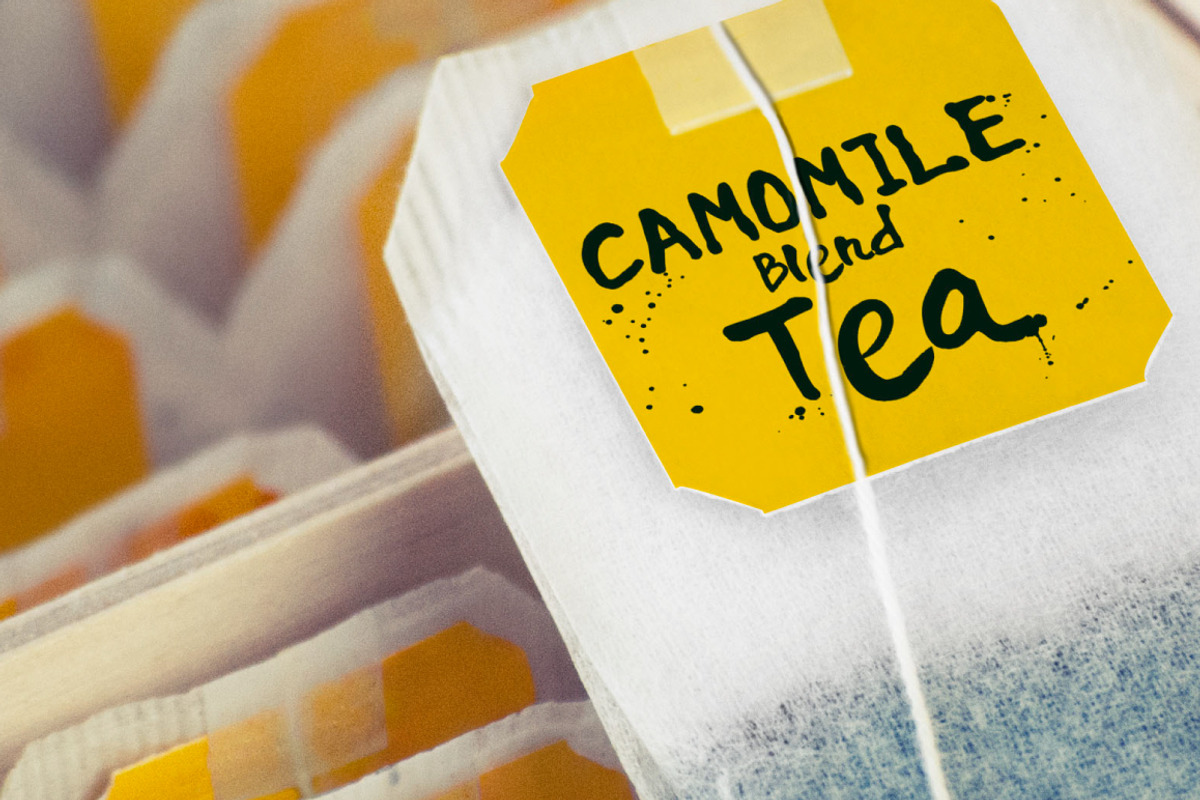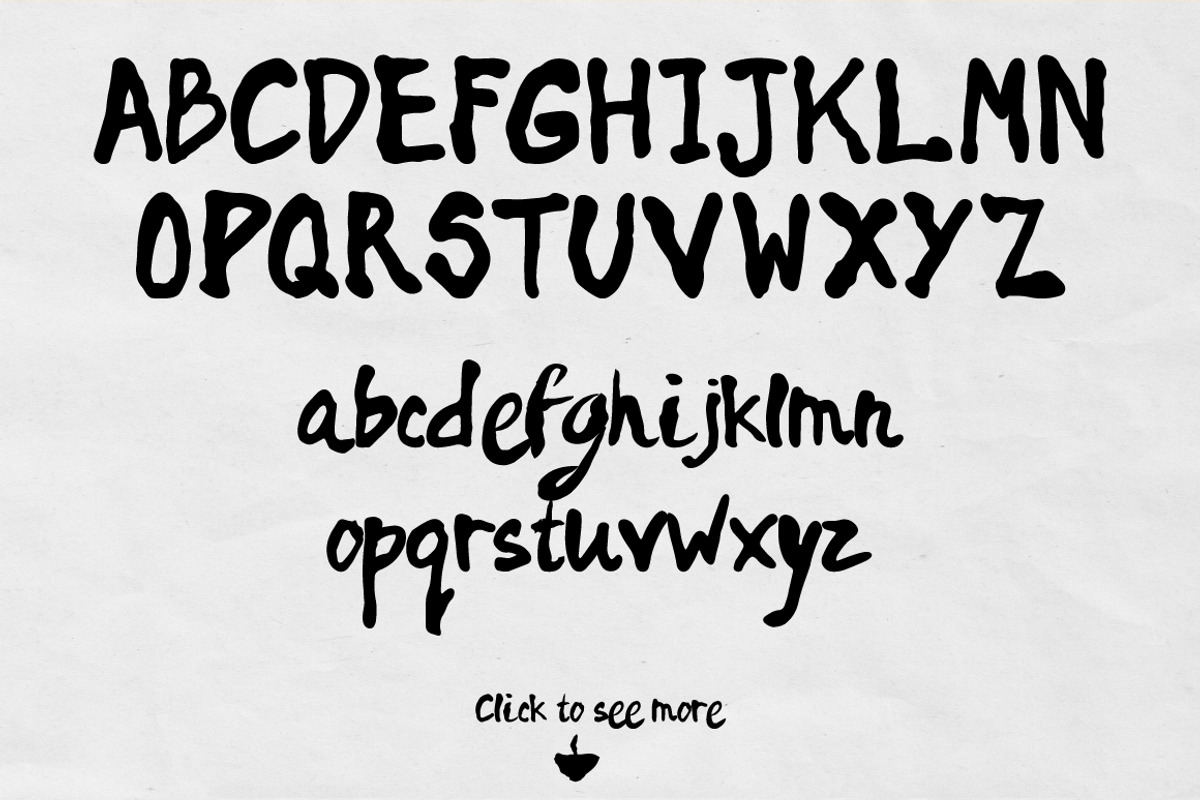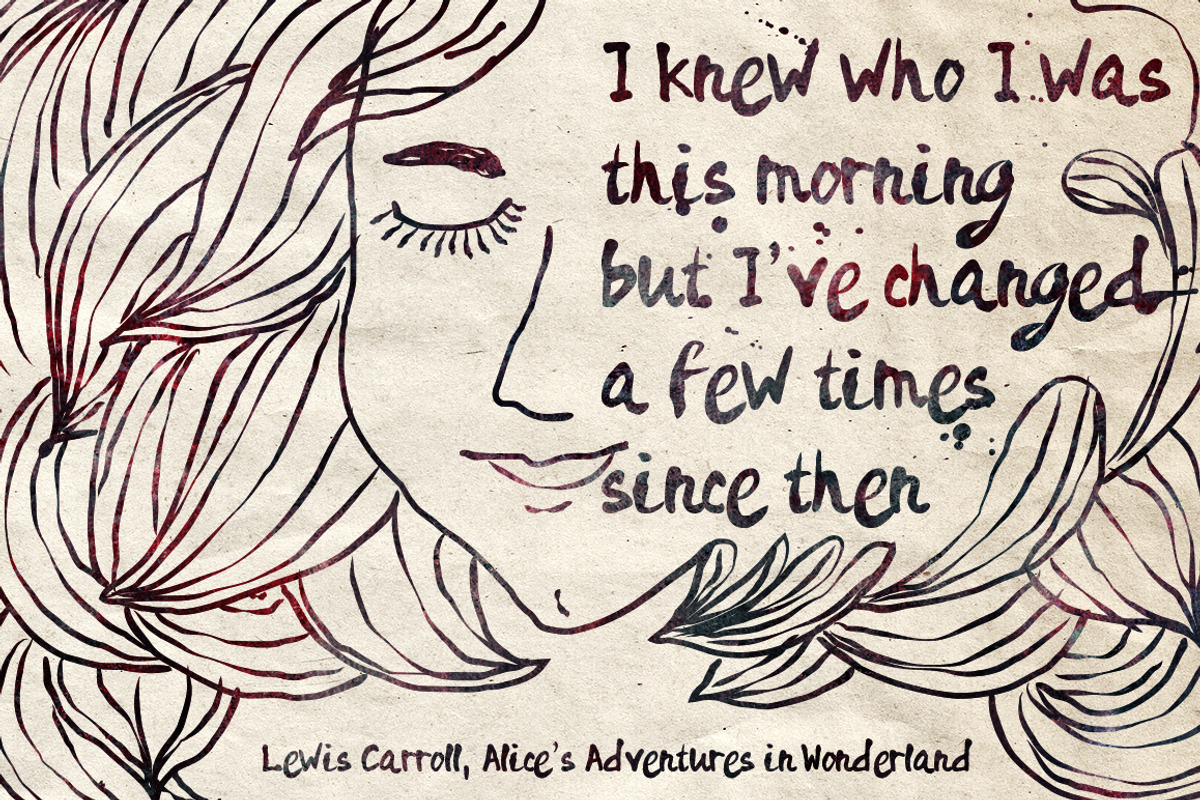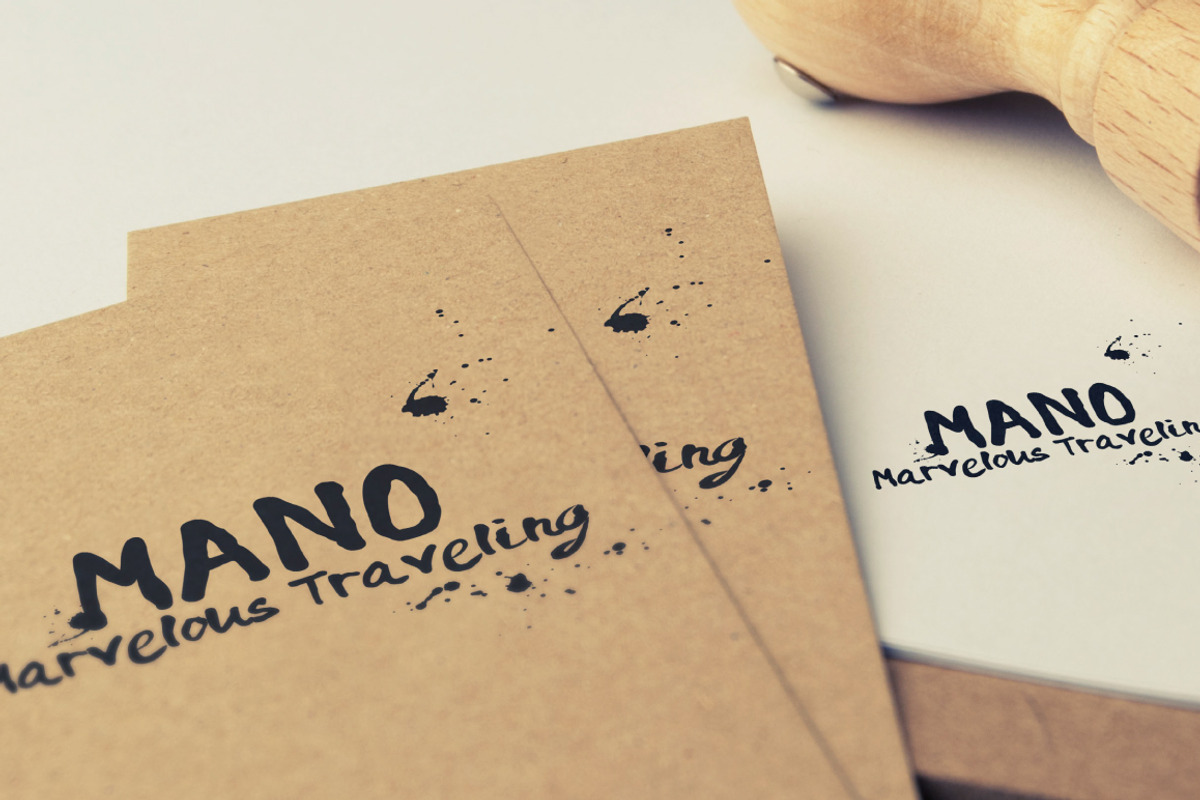
Rainy Days - a Playful typeface
Rainy Days - a Playful typeface by Anna Ivanir is a font selected for branding, posters, packaging, typography.
Why Rainy Days - a Playful typeface is worth a look
Rainy Days - a Playful typeface by Anna Ivanir fits naturally into Branding, posters, packaging, typography.